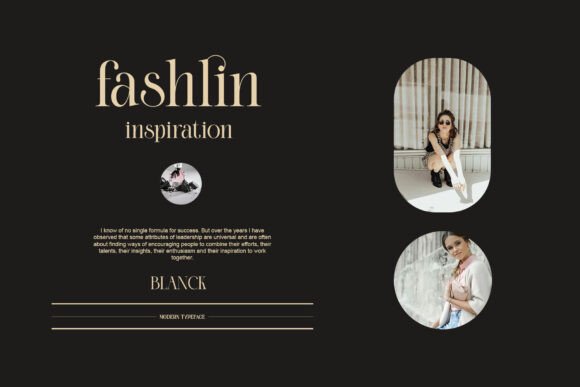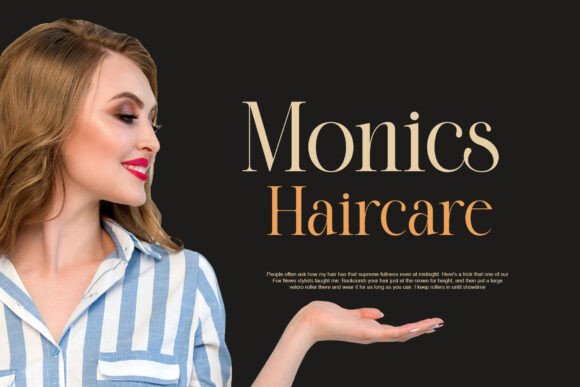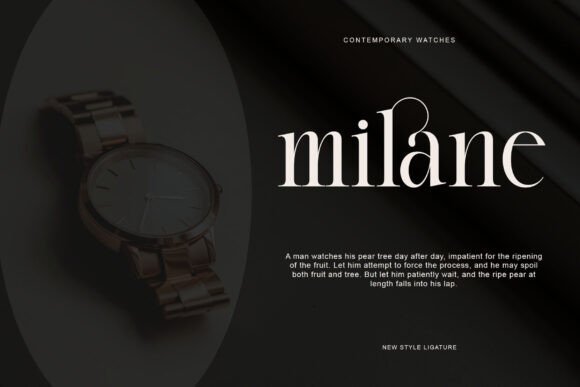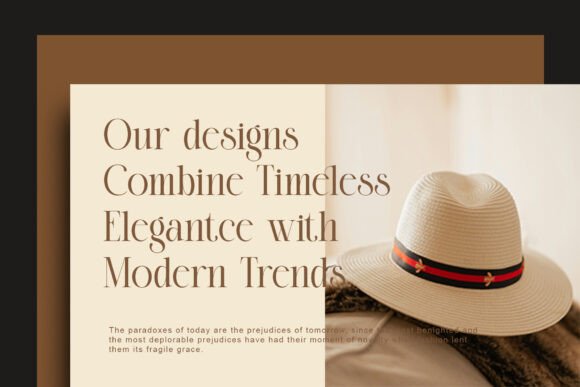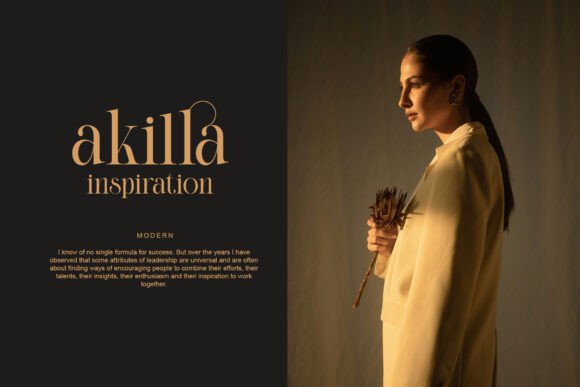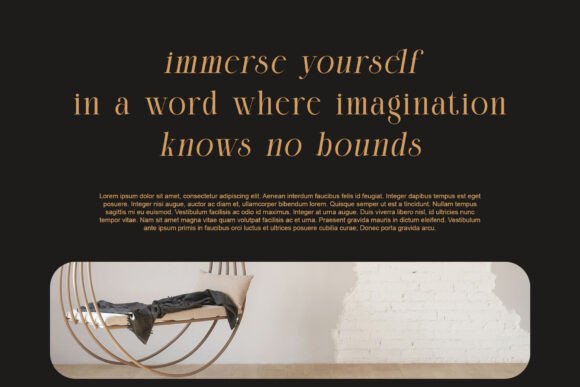
Introducing Blanck Font: Elevate Your Designs with Elegance and Sophistication
In the world of typography, a well-crafted font can make all the difference in elevating a design from ordinary to extraordinary. For designers and crafters seeking a typeface that embodies both classic elegance and modern sophistication, Blanck Font is an exceptional choice. This elegant ligature serif modern font is designed to evoke the beauty of fresh blooms and timeless elegance, making it perfect for upscale designs across various industries.
The Beauty of Blanck Font
Blanck Font stands out with its bold yet refined ligatures, which give it a sophisticated and feminine touch. The font’s design pairs the charm of classic serif styles with a modern twist, making it an excellent choice for projects that demand a high level of refinement. Whether you’re working on floral designs, fashion branding, or high-end product packaging, Blanck Font brings a level of elegance and poise that is sure to impress.
Key Features of Blanck Font
- Elegant Ligature Serif Design: Blanck Font features a ligature serif design that adds a touch of sophistication and refinement to any project.
- Modern Twist: The font’s modern twist on classic serif styles makes it perfect for designers looking for a typeface that feels both timeless and contemporary.
- Feminine and Sophisticated: Blanck Font’s bold yet refined ligatures give it a distinctly feminine and sophisticated feel, making it ideal for designs that require a touch of elegance.
- Soft and Graceful Presence: Every letter in Blanck Font is designed to feel intentional, with a soft and graceful presence that elevates any project it touches.
Perfect for Upscale Designs
Blanck Font is specifically designed for upscale designs, making it an excellent choice for a variety of applications, including:
- Florals: The font’s elegant and refined design makes it perfect for floral designs, adding a touch of sophistication and beauty to any project.
- Fashion: Blanck Font’s sophisticated and feminine feel makes it an excellent choice for fashion branding, packaging, and marketing materials.
- High-End Branding: The font’s modern twist on classic serif styles makes it perfect for high-end branding, adding a touch of elegance and refinement to any project.
Why Choose Blanck Font?
With so many fonts available, why choose Blanck Font for your next project? Here are just a few reasons:
- Unique and Memorable: Blanck Font’s elegant ligature serif design makes it a unique and memorable typeface that will help your project stand out.
- Versatile: The font’s versatility makes it suitable for a wide range of applications, from floral designs to high-end branding.
- Elegant and Refined: Blanck Font’s elegant and refined design makes it perfect for projects that demand a high level of sophistication and refinement.
In conclusion, Blanck Font is an exceptional choice for designers and crafters seeking a typeface that embodies both classic elegance and modern sophistication. With its elegant ligature serif design, modern twist, and sophisticated feel, Blanck Font is perfect for upscale designs across various industries. Whether you’re working on floral designs, fashion branding, or high-end product packaging, Blanck Font is sure to elevate your project and leave a lasting impression.